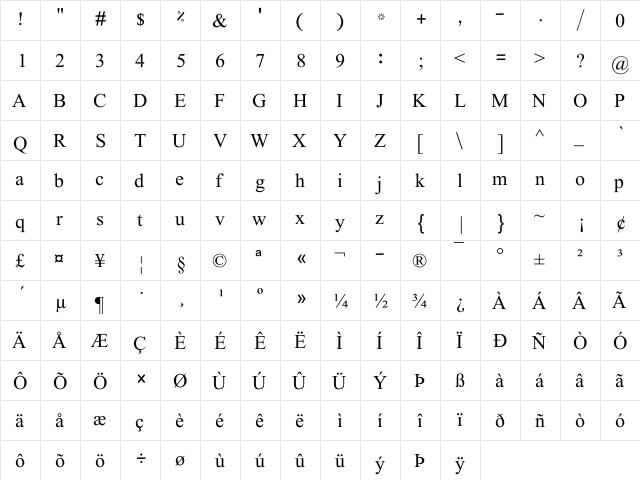
Jameel Noori Kasheeda Regular
Design Context for Jameel Noori Kasheeda Typeface
Jameel Noori Kasheeda offers clean, dependable letterforms without strong stylistic allegiance, making it a practical choice for designers who need flexibility.